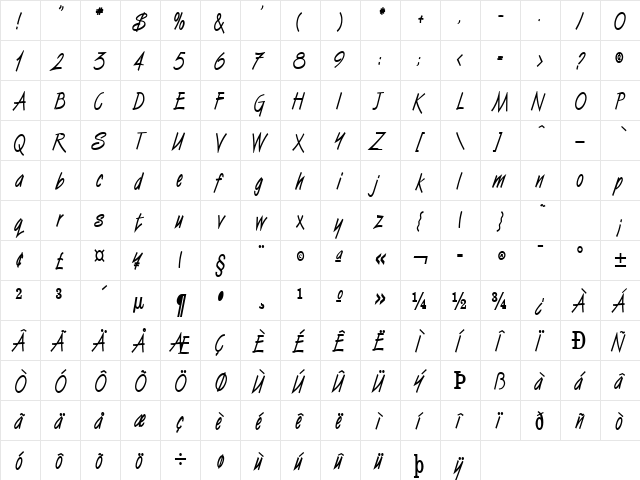
Vizier Condensed Heavy Normal
Design Context for Vizier Condensed Heavy Typeface
Vizier Condensed Heavy is a composed and adaptable typeface that performs quietly and consistently across a wide range of design contexts. The condensed width makes it efficient for tight spaces without sacrificing legibility.
Pro Tip: Use Vizier Condensed Heavy in both headline and body roles to test its range before committing to a single application.